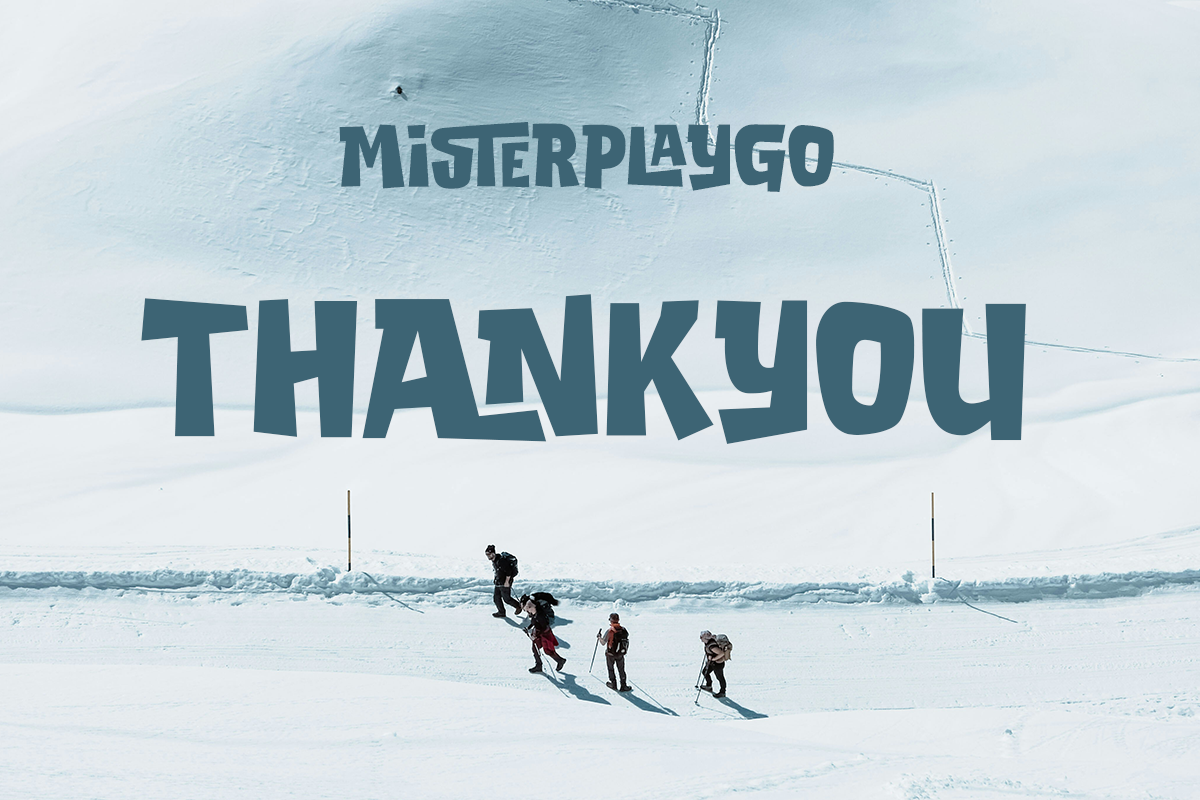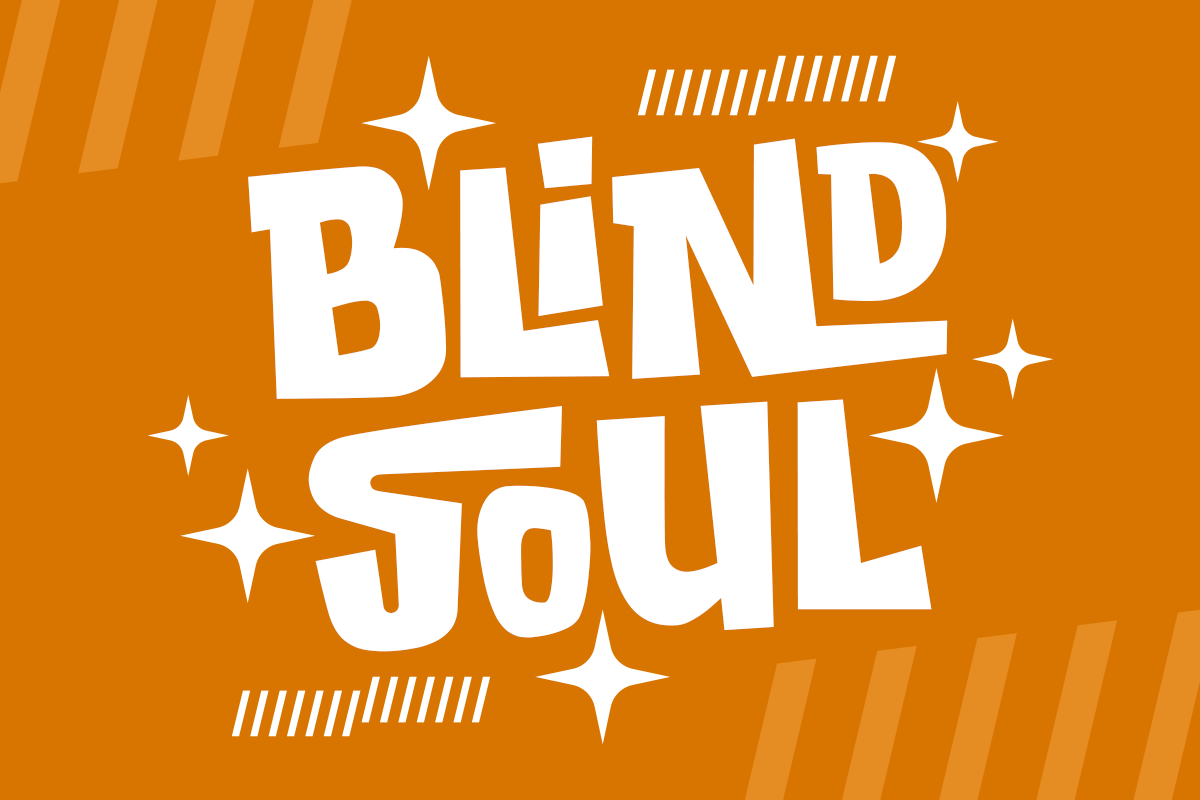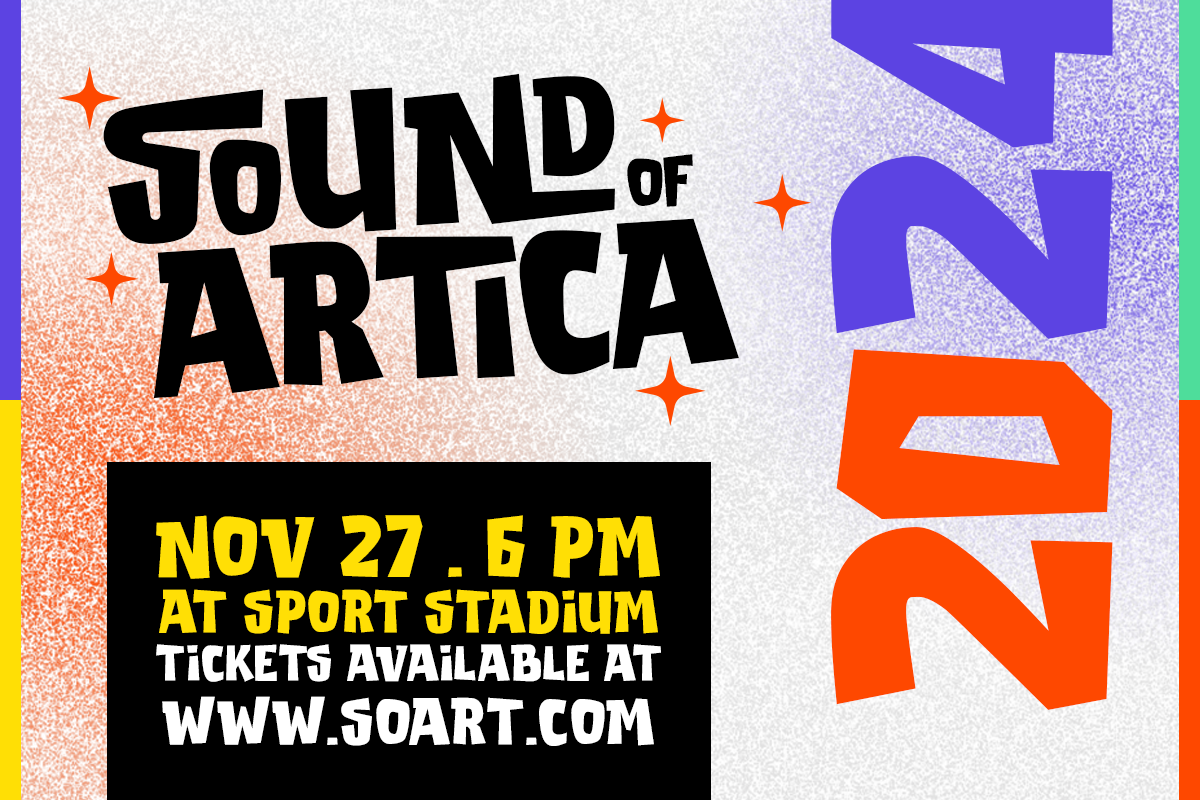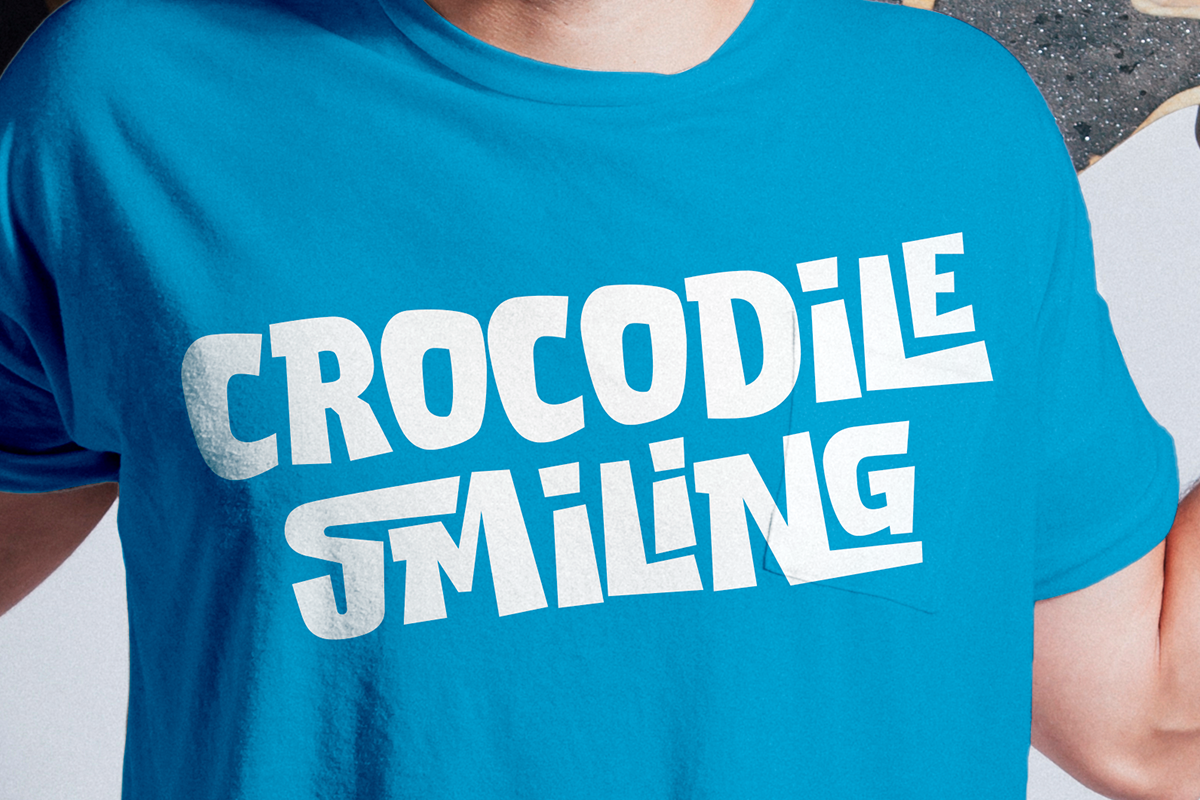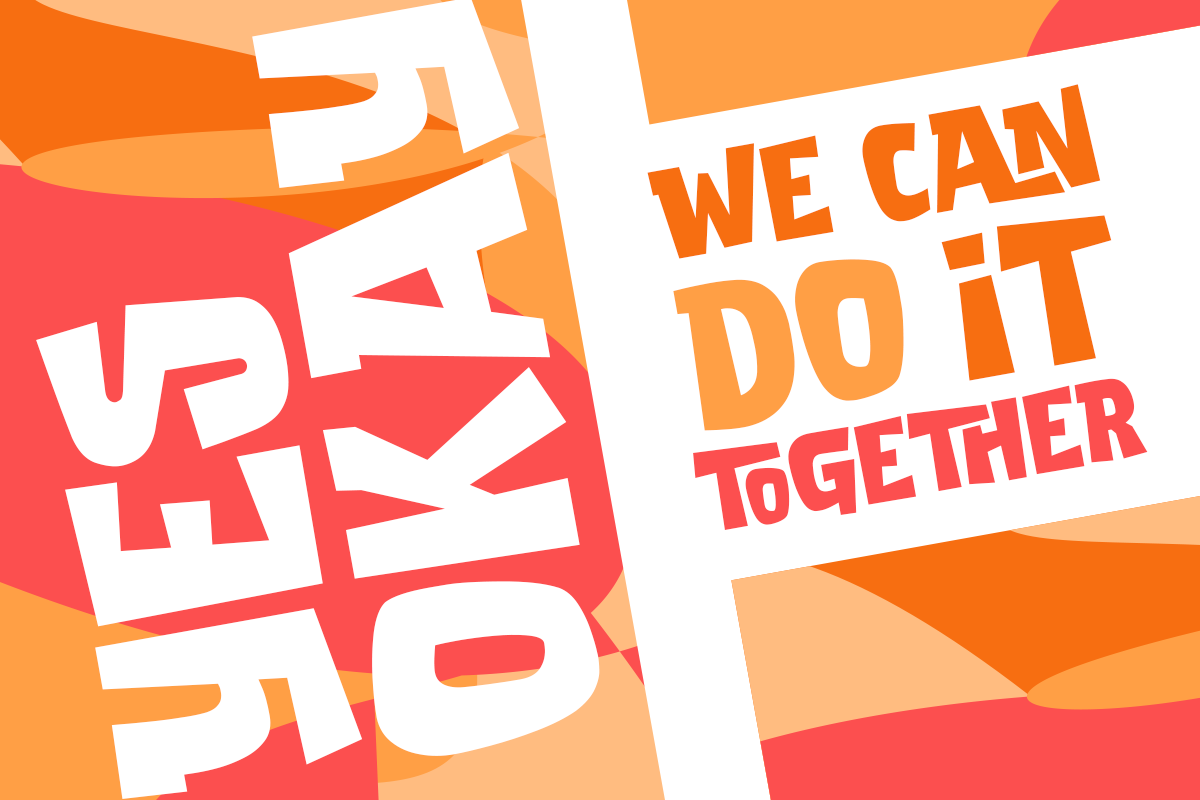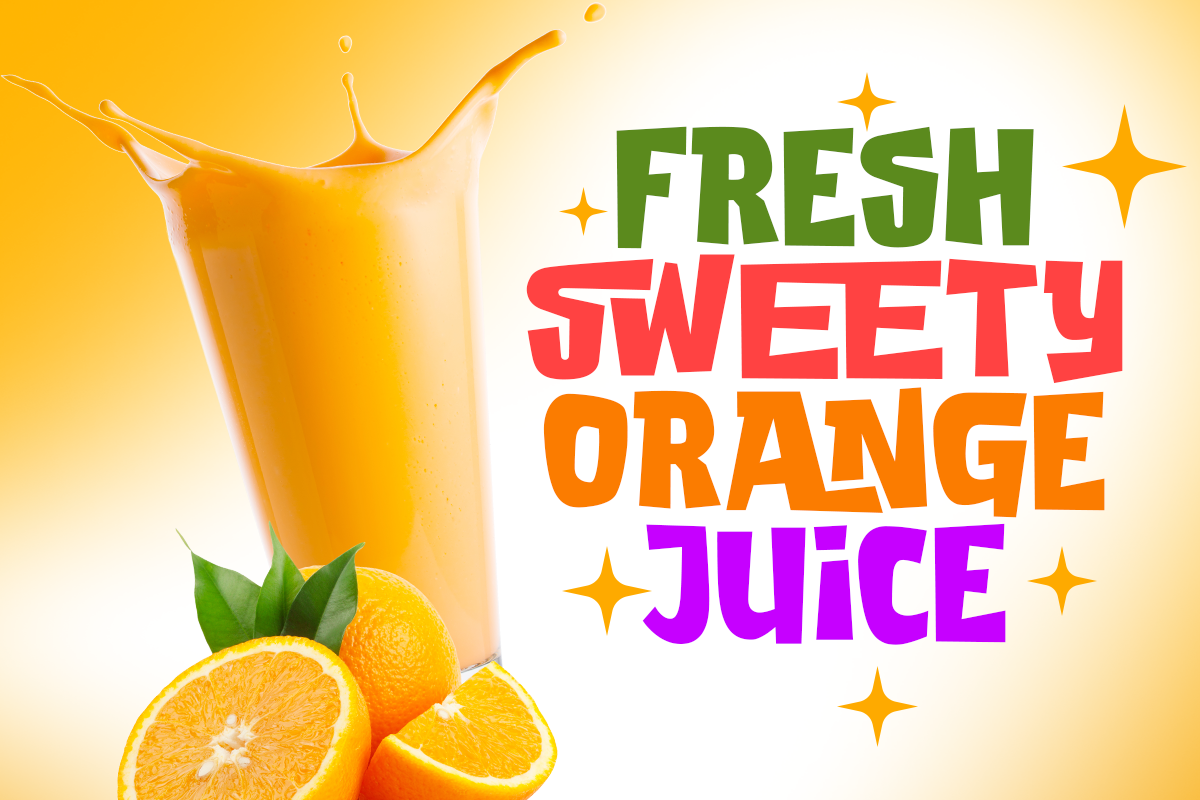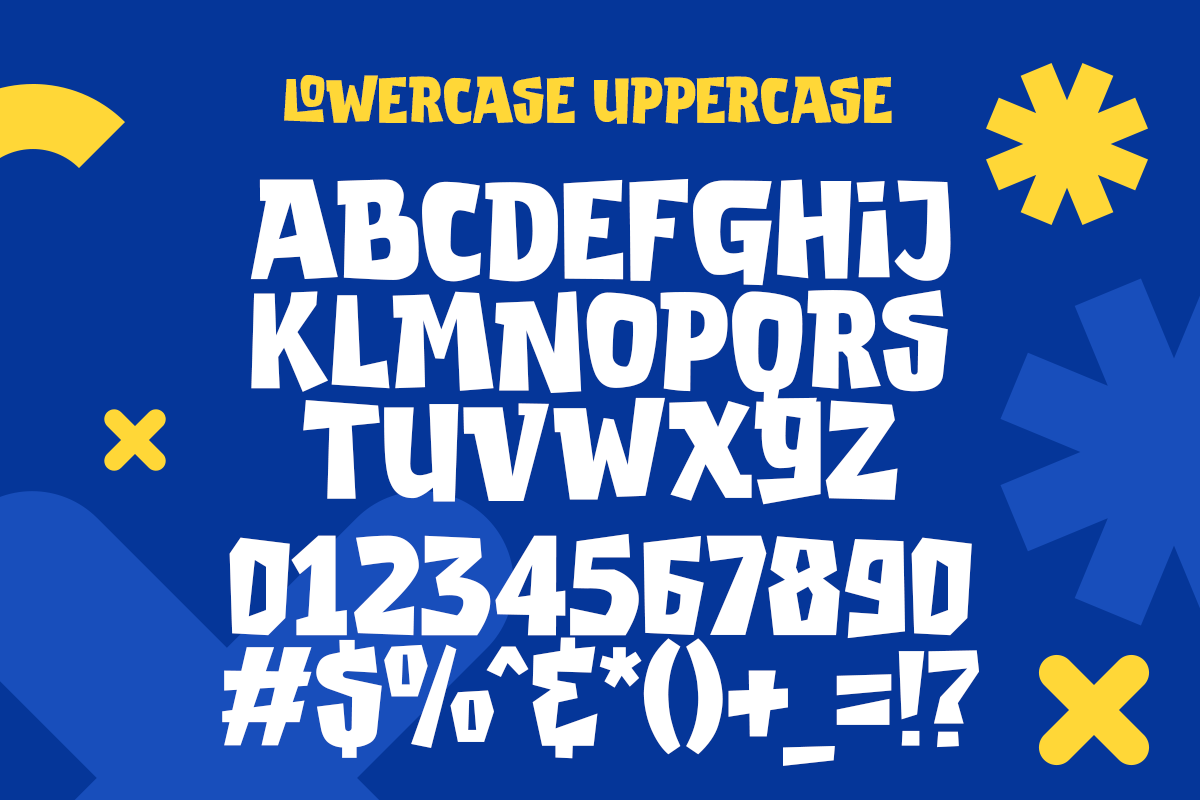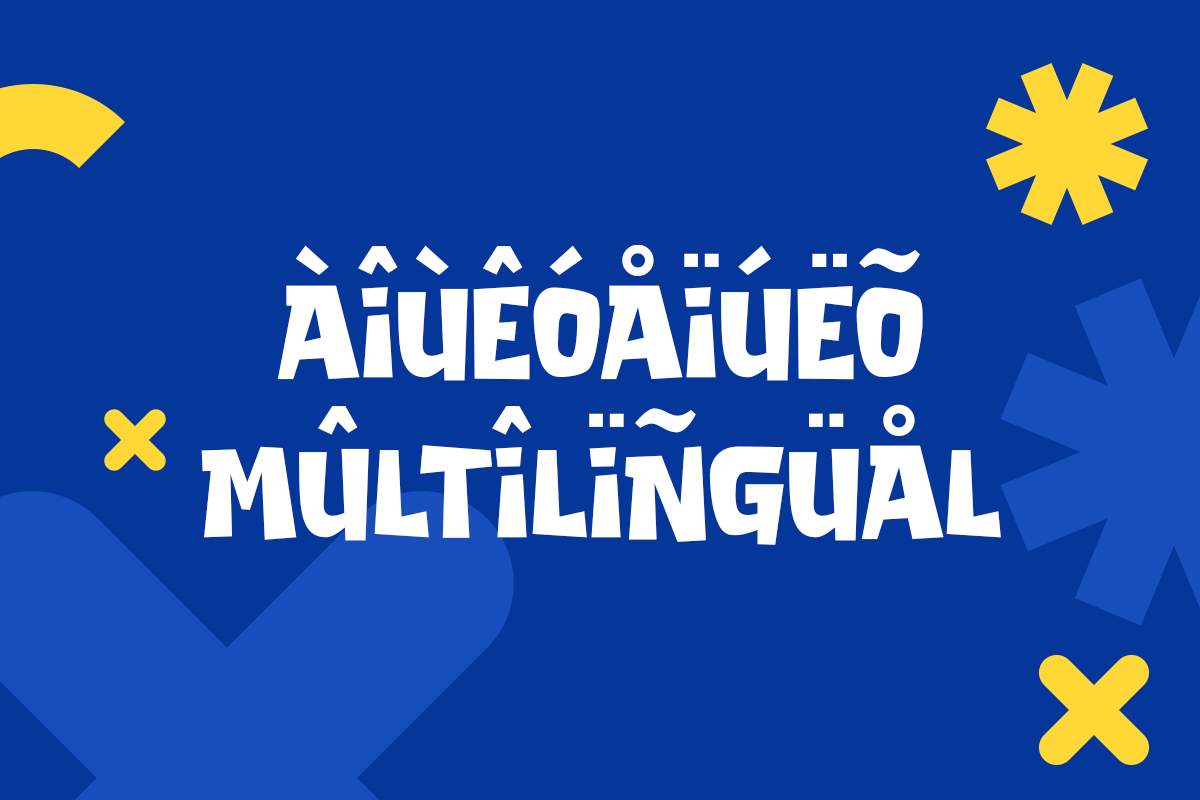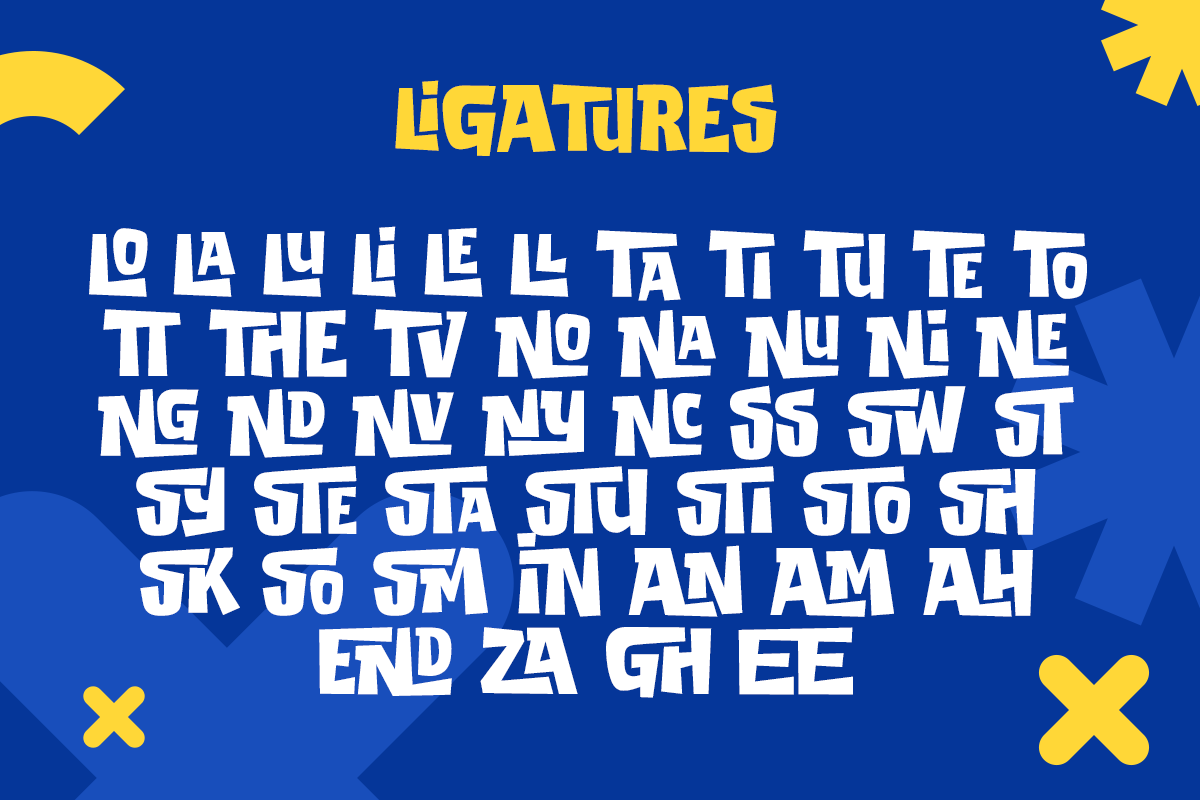
Mister Playgo Modern Playful Display Font A Display typeface, Mister Playgo Modern Playful Display Font features simple and modern bold font design elements. Each letter of this font is easy to distinguish. You can see it clearly from far or near. The letters in this font are simple, bubble-shaped, and handwritten. This font is legible. This typeface is the best font for kids' supplies, like school supplies, clothes, and water bottles. Mister Playgo Modern Playful Display Font can be used on roadside posters and billboards containing promotions or product announcements about children. This font can be used on book and magazine covers. This font is best for writing short sentences or words as it will look simple and clean. It can be used as beverage packaging and cell phone cases. Mister Playgo Modern Playful Display Font can be used as a digital font. It is perfect for animated videos and can be used as a title or subtitle that appears in the intro to write thank-you notes outside of the video. This font can be included in cartoons and fairy tales. Of all these explanations, the Mister Playgo Modern Playful Display Font is the best children's font. Our Display font collection is compatible with; Figma Fonts, Canva Fonts, Freepik Fonts, and Adobe Fonts. They also work as Windows Fonts and Apple Fonts. For your social media needs, you can use and install fonts in our collection of Espot & Futuristic fonts to use as Instagram Fonts, Facebook Fonts, and Twitter Fonts.